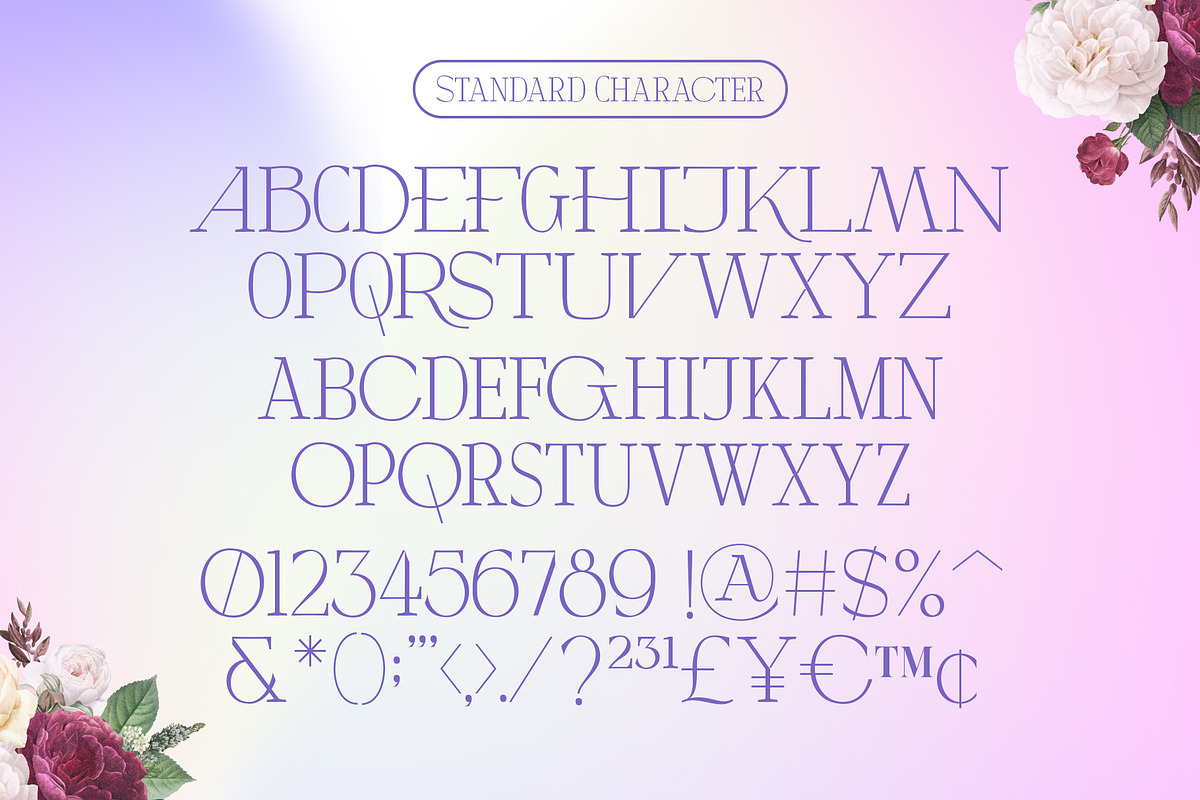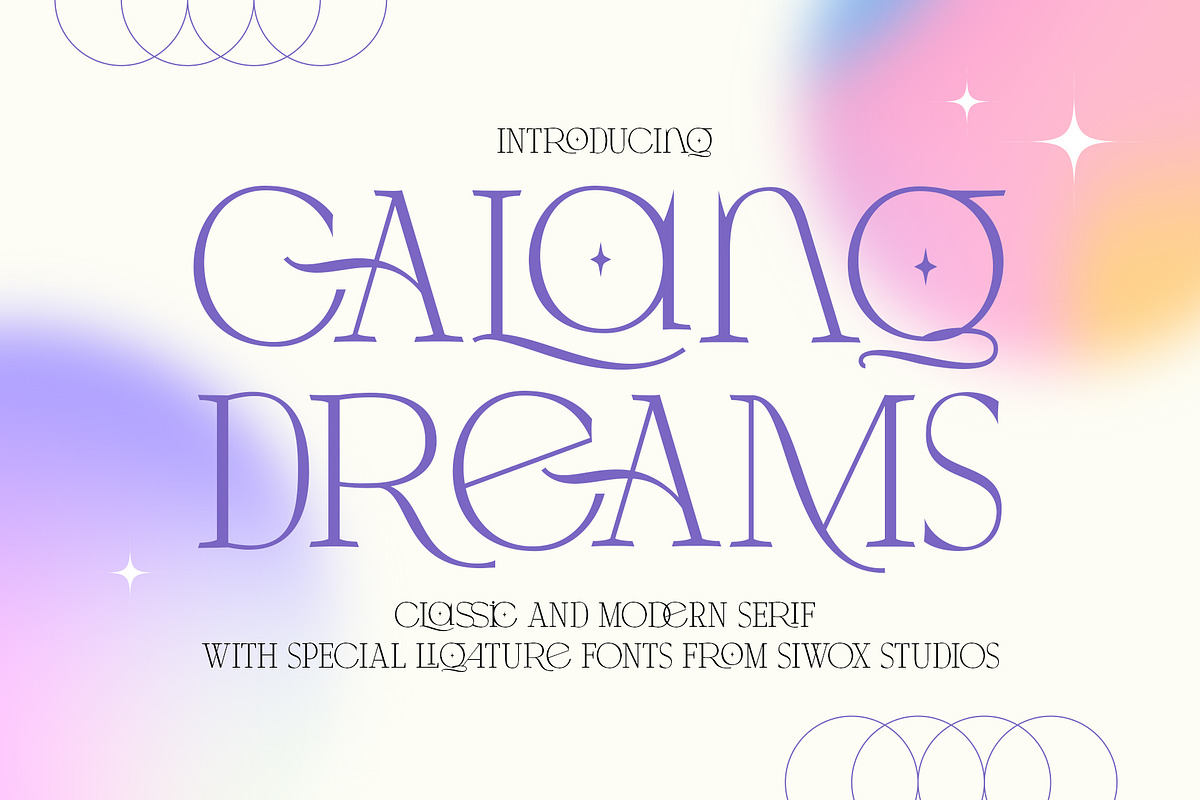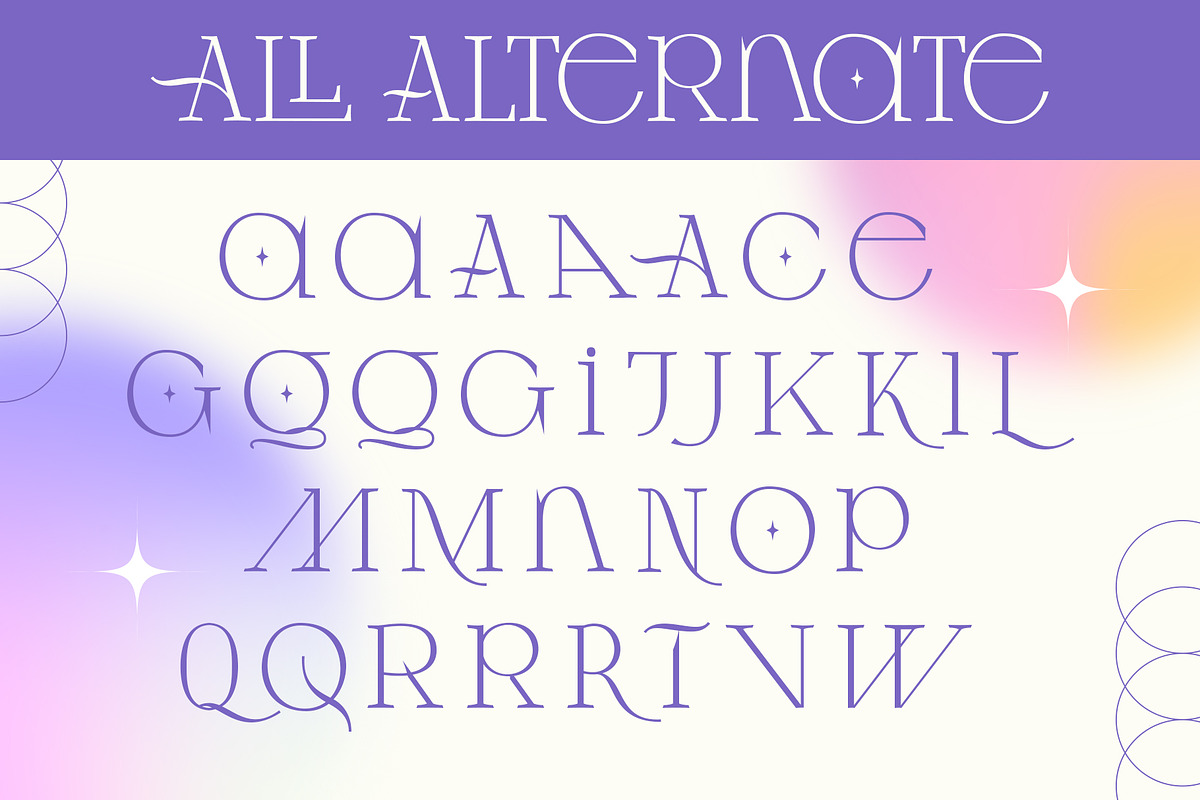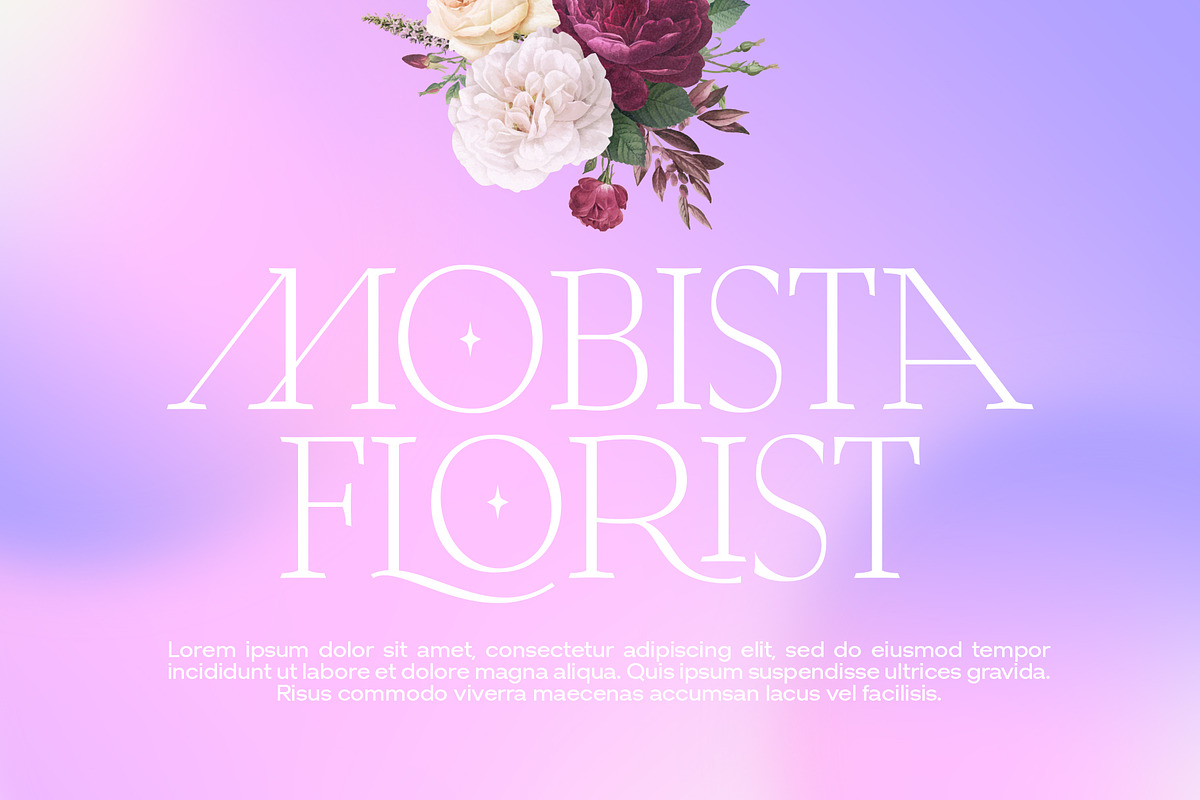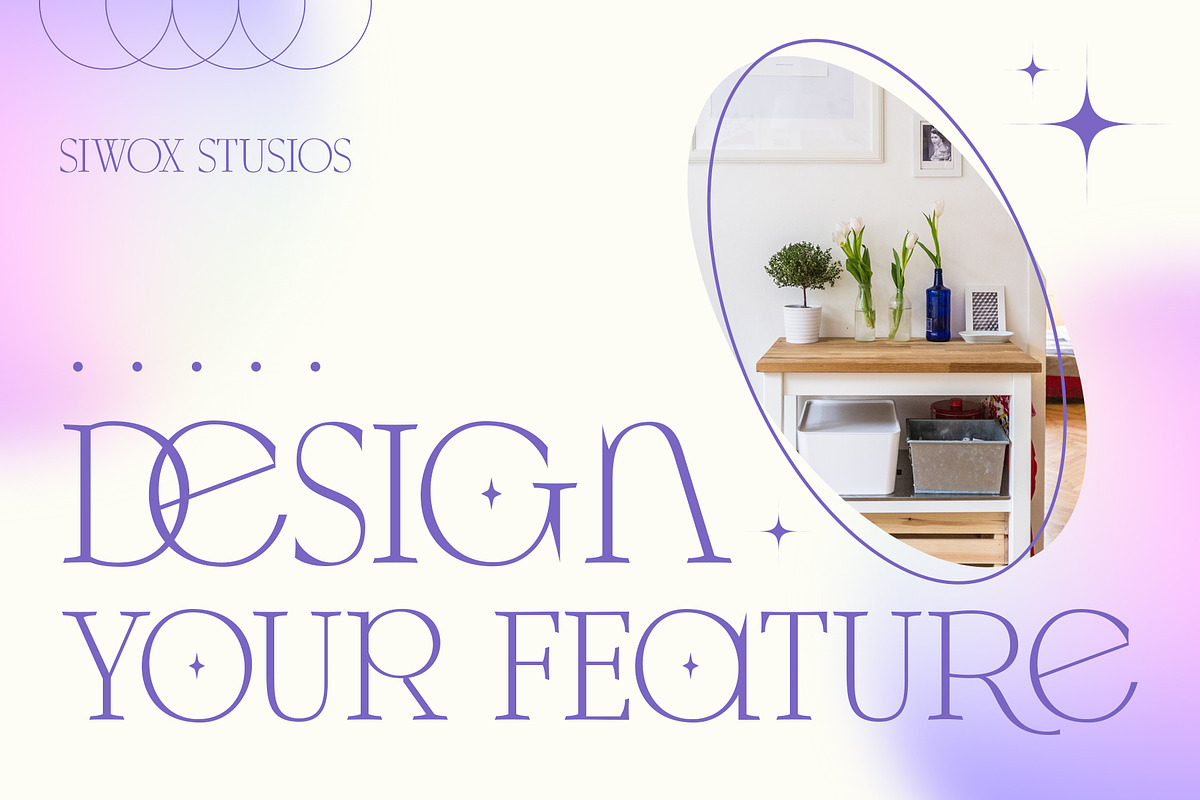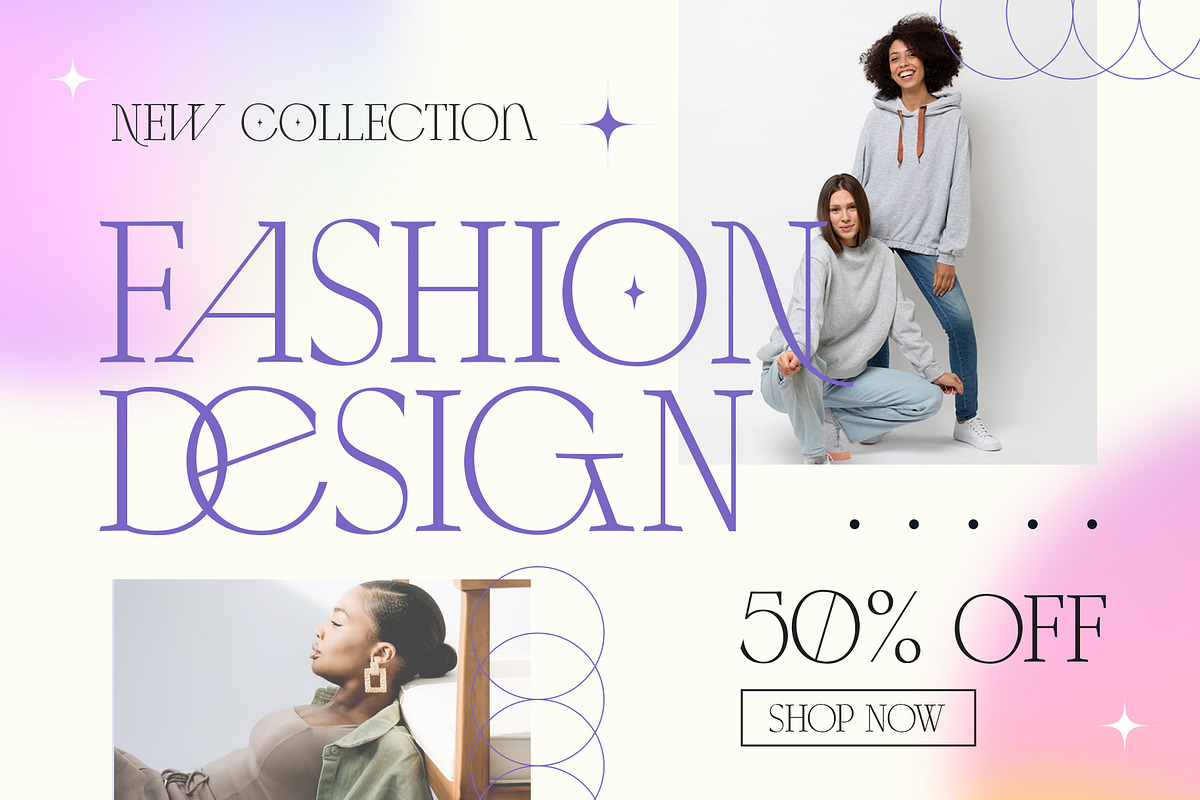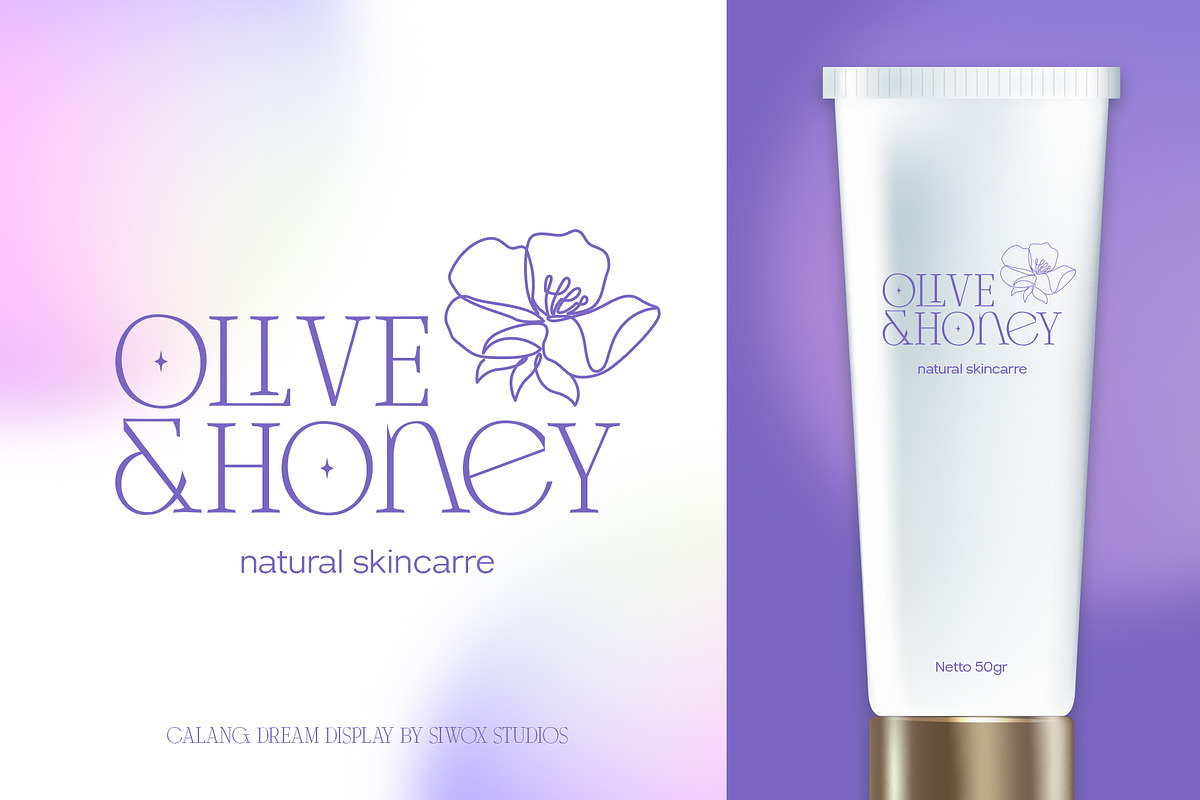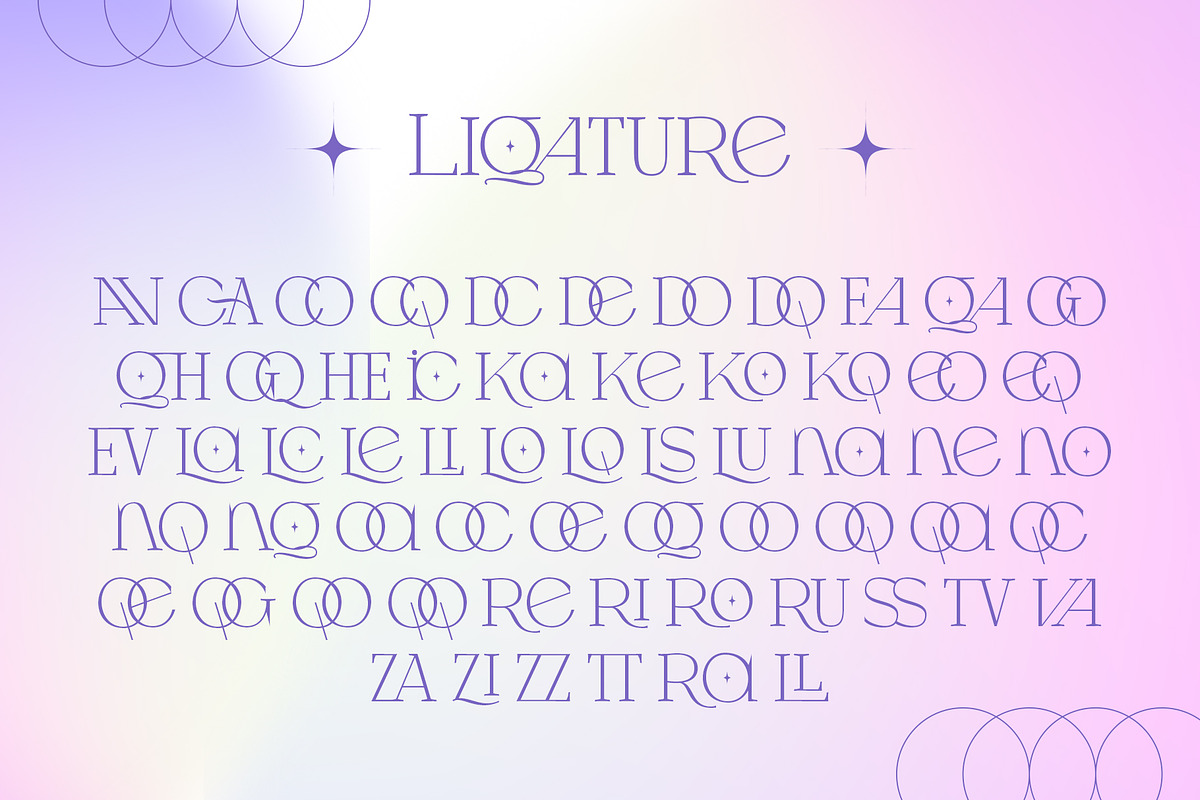
Calang Dreams with Ligatures
Calang Dreams is a delicate and elegant serif font, designed to add a refined touch to your design projects. With PUA encoding, you can easily access all of its beautiful glyphs and swashes, offering you extra flexibility in your creations. What sets this font apart are its special ligatures, which enhance the harmony and uniqueness of your text, giving it a sophisticated and professional look. Add Calang Dreams to your designs, and you’ll love the enchanting results it brings!
- Standard Uppercase & Lowercase
- Number, Symbol & Punctuation